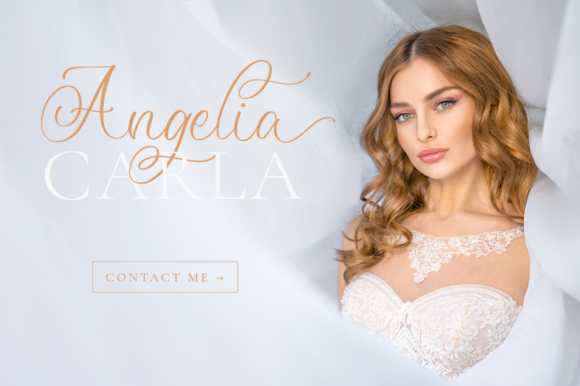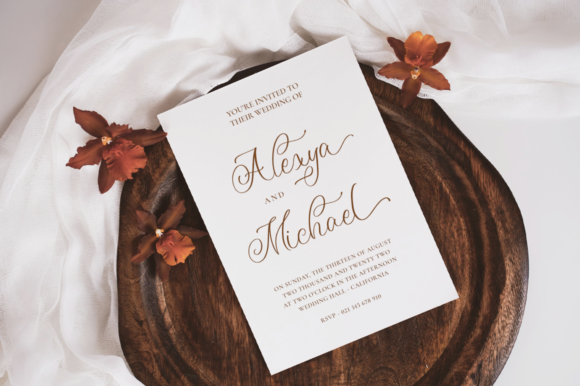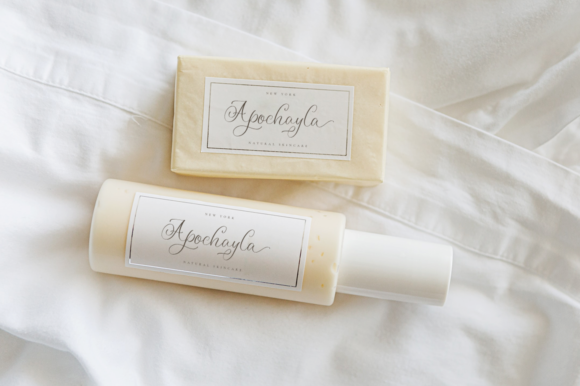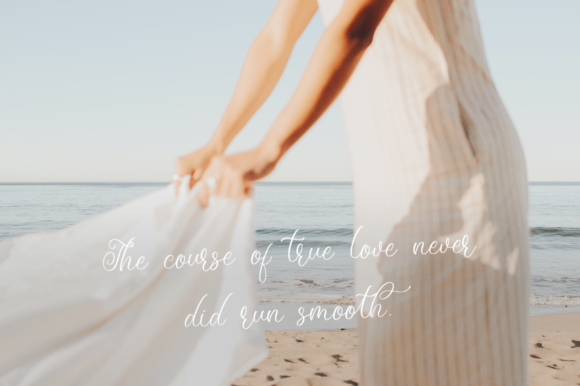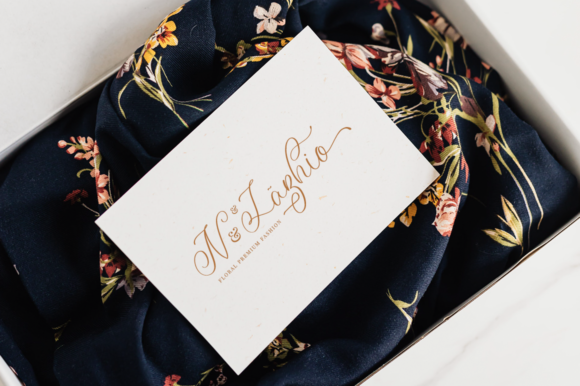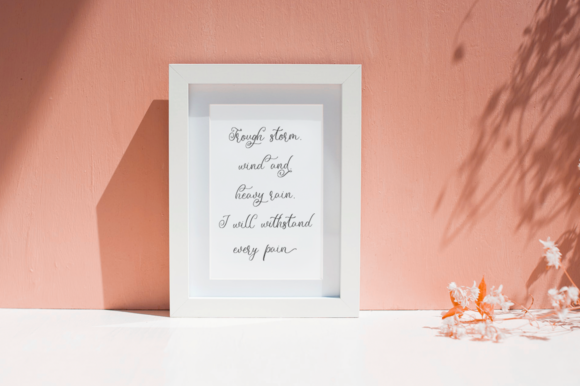
Introduction to Narliana Font
There’s something magical about a creative project coming together – the perfect combination of colors, shapes, and typography. For designers, that ‘aha’ moment is what makes all the hard work worth it. It’s the moment when a beautiful design finally takes shape, and you know you’ve created something truly special.
One of the key elements that can make or break a design is the font. A high-quality font can elevate a design from good to great, and that’s exactly what the Narliana Font does. This thin-lettered and graceful script font is a design resource that’s sure to fall in love with its ravishing style.
Not only is Narliana Font a free download, but it’s also PUA encoded, making it easy to access all its glyphs and swashes. Whether you’re working on a creative project or need a reliable design resource, Narliana Font is a valuable addition to your toolkit, offering a transparent background and endless possibilities for customization.
Key Features of Narliana Font
- Unique, modern design with a distinctive aesthetic
- Perfect for use in digital and print media, including logos, graphics, and typography
Honest Review: Narliana Font
I recently stumbled upon the Narliana Font, and I must say, it’s a hidden gem in the world of design resources. This high-quality font is perfect for any creative project that requires a unique touch.
What works well about the Narliana Font is its elegant and refined design. The transparent background and smooth lines make it a great choice for both digital and print projects. The font is also highly versatile, making it suitable for a wide range of applications, from logos to packaging design.
- Elegant and refined design
- Smooth lines
- Highly versatile
One of the limitations of the Narliana Font is that it may not be suitable for projects that require a bold or playful tone. Additionally, some users may find the font to be a bit too minimalist.
Overall, I’m really impressed with the Narliana Font. It’s a high-quality design resource that’s perfect for any creative project that requires a touch of sophistication. The best part? It’s available for free download, making it a great option for designers on a budget.
Narliana Font
The Narliana Font is a high-quality design resource perfect for creative projects. With a transparent background, this font offers endless possibilities for customization.
Tips for Getting the Most Out of Narliana Font
For optimal results, use the Narliana Font in conjunction with other design elements, such as graphics and textures. Experiment with different font sizes and colors to create a unique look.
The Narliana Font is ideal for:
- Web design projects